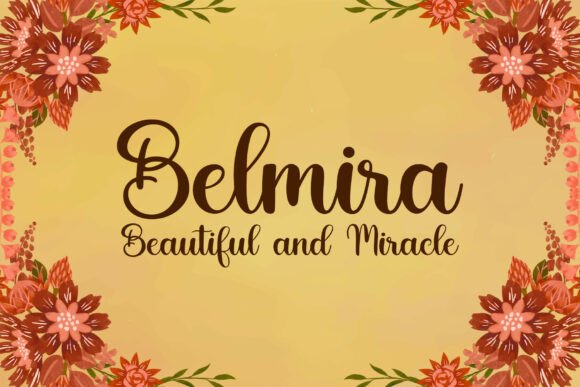
Belmira Font: Elevate Your Designs with Elegance and Sophistication
In the world of typography, fonts play a crucial role in conveying the tone and personality of a design project. Whether you’re working on an invitation, logo, branding, or any other creative endeavor, the right font can make all the difference. This is where Belmira Font comes in – an elegant and modern script font that is sure to add a touch of sophistication to your designs.
The Unique Charm of Belmira Font
Belmira Font is a stunning script font that boasts unique swirly characters and stylish flourishes. Its flowing and graceful style sets it apart from other fonts, making it a standout choice for designers looking to add a touch of luxury to their projects. With Belmira Font, you can create beautiful and eye-catching designs that exude elegance and refinement.
Key Features of Belmira Font
- Elegant and Modern Design: Belmira Font features a sleek and contemporary design that is perfect for modern design projects.
- Unique Swirly Characters: The font’s unique swirly characters add a touch of whimsy and playfulness to your designs.
- Stylish Flourishes: Belmira Font’s stylish flourishes add a level of sophistication and elegance to your designs.
- PUA Encoded: The font is PUA encoded, providing you with complete access to every glyph and swash for your convenience.
Perfect for a Variety of Design Projects
Belmira Font is a versatile font that can be used for a wide range of design projects, including:
- Invitations: Whether you’re designing a wedding invitation, birthday invitation, or any other type of invitation, Belmira Font is the perfect choice.
- Logos: Create a stunning logo for your business or brand with Belmira Font’s elegant and modern design.
- Branding: Use Belmira Font to create a cohesive brand identity that exudes sophistication and elegance.
- Stationery: Design beautiful stationery, including letterheads, business cards, and more, with Belmira Font.
The Benefits of Using Belmira Font
- Adds a Touch of Sophistication: Belmira Font adds a level of elegance and refinement to your designs, making them stand out from the crowd.
- Versatile: The font’s versatility makes it perfect for a wide range of design projects.
- Easy to Use: Belmira Font is PUA encoded, making it easy to access and use every glyph and swash.
- Unique: The font’s unique swirly characters and stylish flourishes ensure that your designs will be one-of-a-kind.
Tips for Using Belmira Font
To get the most out of Belmira Font, here are a few tips to keep in mind:
- Use it as a Headline Font: Belmira Font is perfect for use as a headline font, adding a touch of elegance and sophistication to your titles and headings.
- Pair it with a Sans-Serif Font: Pair Belmira Font with a sans-serif font for a beautiful and contrasting look.
- Experiment with Swashes: Don’t be afraid to experiment with the font’s swashes and glyphs to add a unique touch to your designs.
In conclusion, Belmira Font is a stunning and elegant script font that is perfect for designers looking to add a touch of sophistication to their designs. With its unique swirly characters, stylish flourishes, and PUA encoding, Belmira Font is a versatile and easy-to-use font that is sure to elevate your designs to the next level.